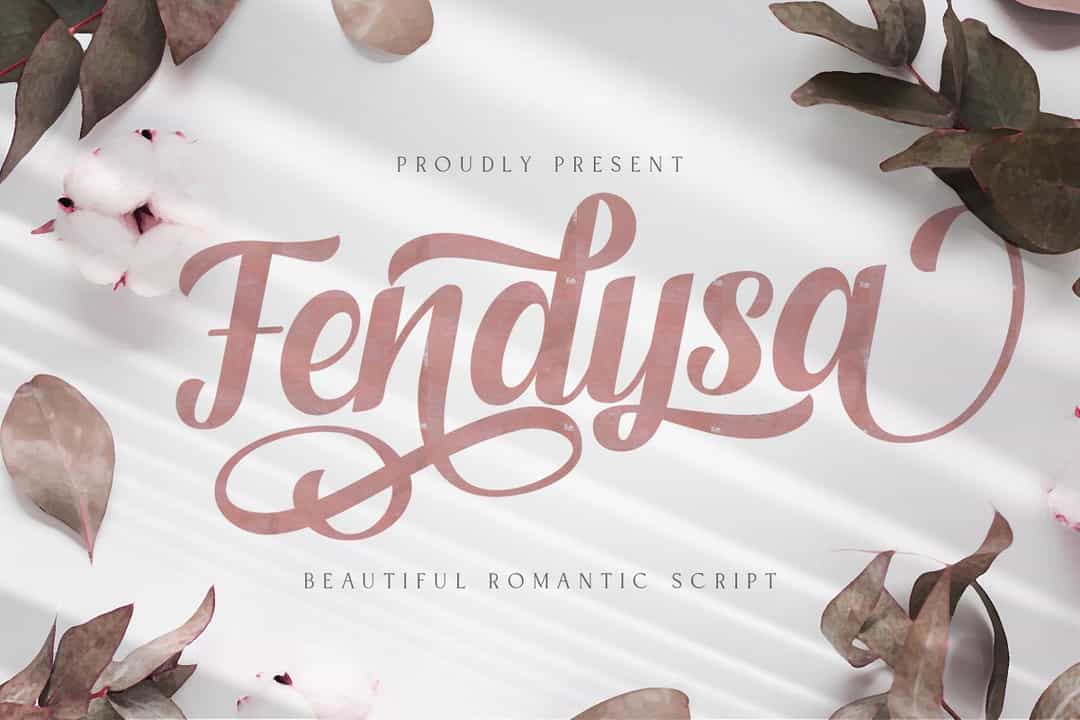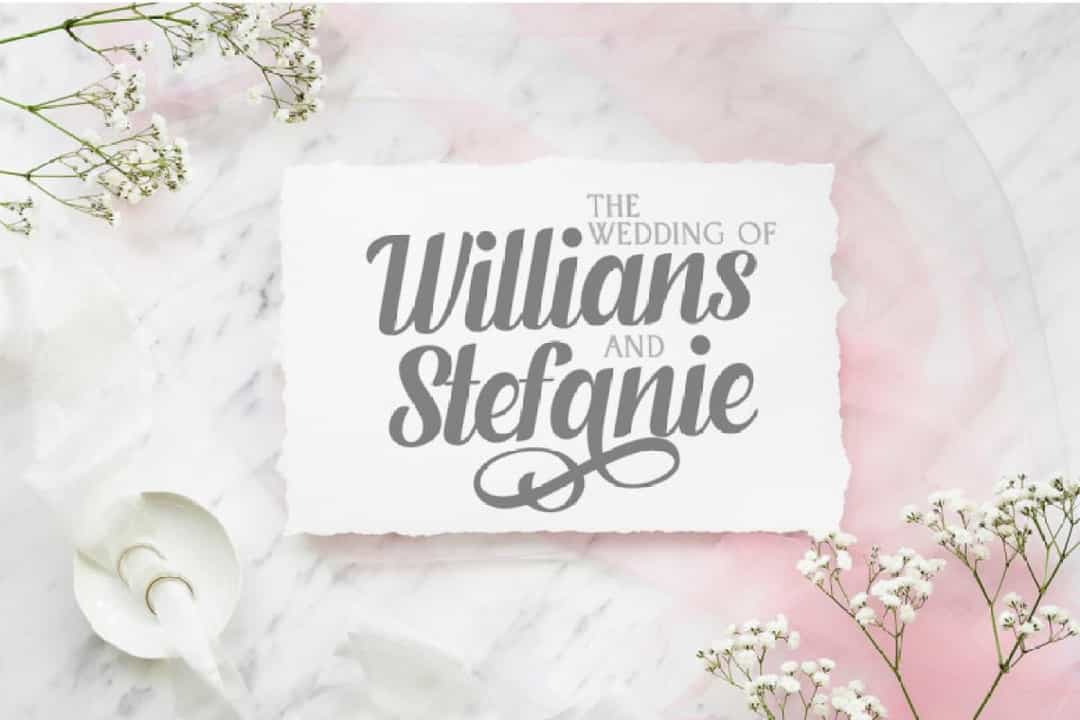
Fendysa is a script font that comes with a beautiful elegance of writing in calligraphy style. Stll Love script is relevant for times when you want script fonts that are compatible with the calligraphy to use in homemade projects so get ready to turn your idea that you have in mind into an amazing piece of art.